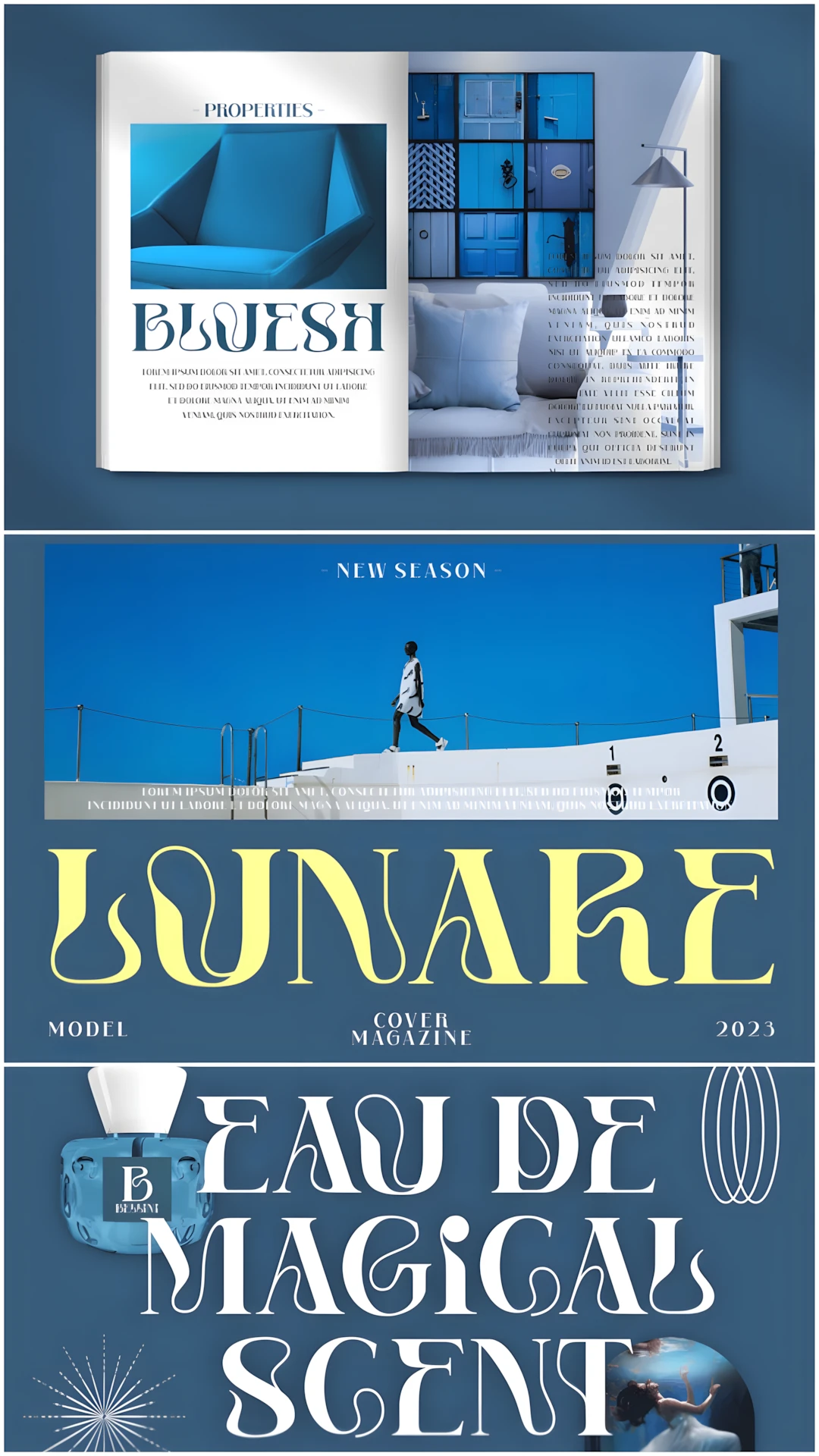
Qharon Font is a stylish serif for designers who want to make a statement. It mixes modern ideas with curves and details, so it works great for fancy, feminine projects.
Unlike old-school serif fonts, Qharon is new. Its letters are cool without being hard to read. It’s good for headlines and brand images.
The Idea Behind Qharon
Qharon was made to be pretty, emotional, and clear. Each letter is careful and flows well. The curves and shapes make it stand out.
The idea is to be fancy but not too much. It uses small details to look fancy, which makes it good for high-end brands and magazines.
Why Serif Fonts Are Popular
Serif fonts are coming back, mostly for brands and online stuff. Designers want fonts with personality. Fonts like Qharon help brands feel real and memorable.
Cool Things About Qharon Font
Neat Letter Shapes
Qharon Font has special letter shapes. The curves are soft but strong, and the lines add something extra. Each word feels unique.
A Pretty, Girly Look
Qharon feels feminine and fancy, making it great for beauty brands, weddings, and fashion. It’s still good for modern projects, though.
Modern But Still Classic
Qharon feels new, but it will last. The serif style means it will be good for a long time, so it’s a smart choice for brands.
Where to Use Qharon Font
For Logos
Qharon Font is great for logos. It helps brands stand out and feel high-end. It’s good for luxury brands, boutiques, and studios.
In Magazines
Magazine designers like Qharon for headlines. It gets attention and looks professional.
On Wedding Stuff
Qharon is perfect for wedding invites and cards. It adds feeling and charm without looking old.
Qharon Font in Online and Print
Websites and Social Media
Online, Qharon Font is best for headlines and banners. It makes social media posts and websites look better.
Clothes and Ads
Qharon also looks good on clothes and ads. It makes text stand out, even from far away.
How Qharon Font Makes Brands Look Good
How It Makes People Feel
Fonts change how people feel about a brand. Qharon Font shows elegance, confidence, and creativity. This helps brands get trust.
Makes Brands Look High-End
Using Qharon makes brands look stylish and high-quality, which is good in competitive markets.
Using Qharon Font with Other Fonts
Good Sans-Serif Choices
Qharon looks good with simple sans-serif fonts like Montserrat or Open Sans. This makes things balanced and easy to read.
Font Size and Space Tips
Qharon should be used for small things. Keep the main text simple and add space so the letters can breathe.
Questions About Qharon Font
1. Is Qharon Font good for logos?
Yes, Qharon Font is great for logos, mostly for luxury brands.
2. Can Qharon Font be used for web design?
Yep. It’s good for headings and banners.
3. Is Qharon Font good for feminine designs?
Yes, it’s good for girly projects.
4. Should Qharon Font be used for main text?
No. Use it for titles.
5. What businesses should use Qharon Font?
Fashion, beauty, weddings, and magazines.
Last Words on Qharon Font
Qharon Font is more than just a font—it makes a statement. With its style and curves, it helps designers make things that feel fancy and emotional. Use it for brands, magazines, or projects to add beauty.